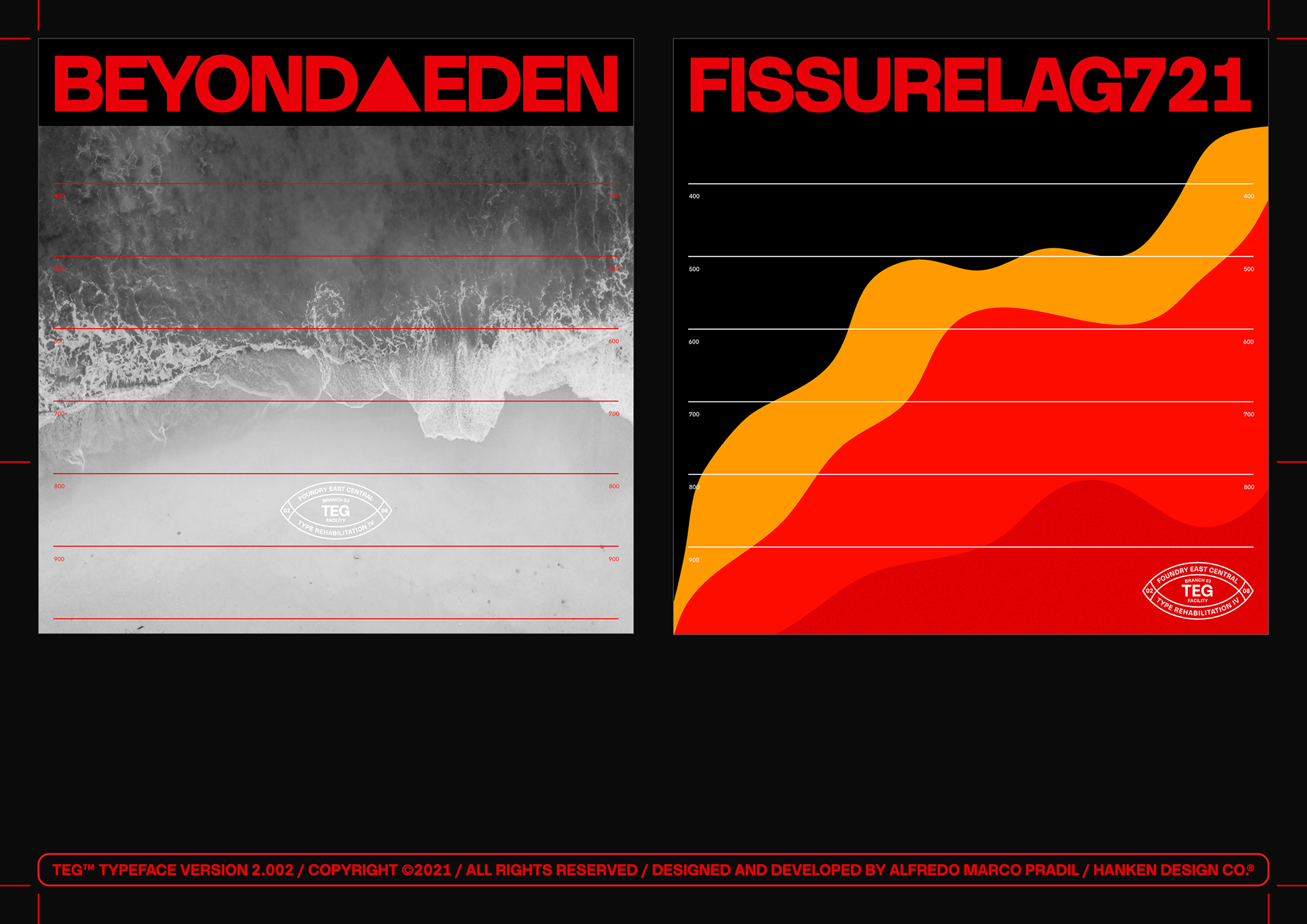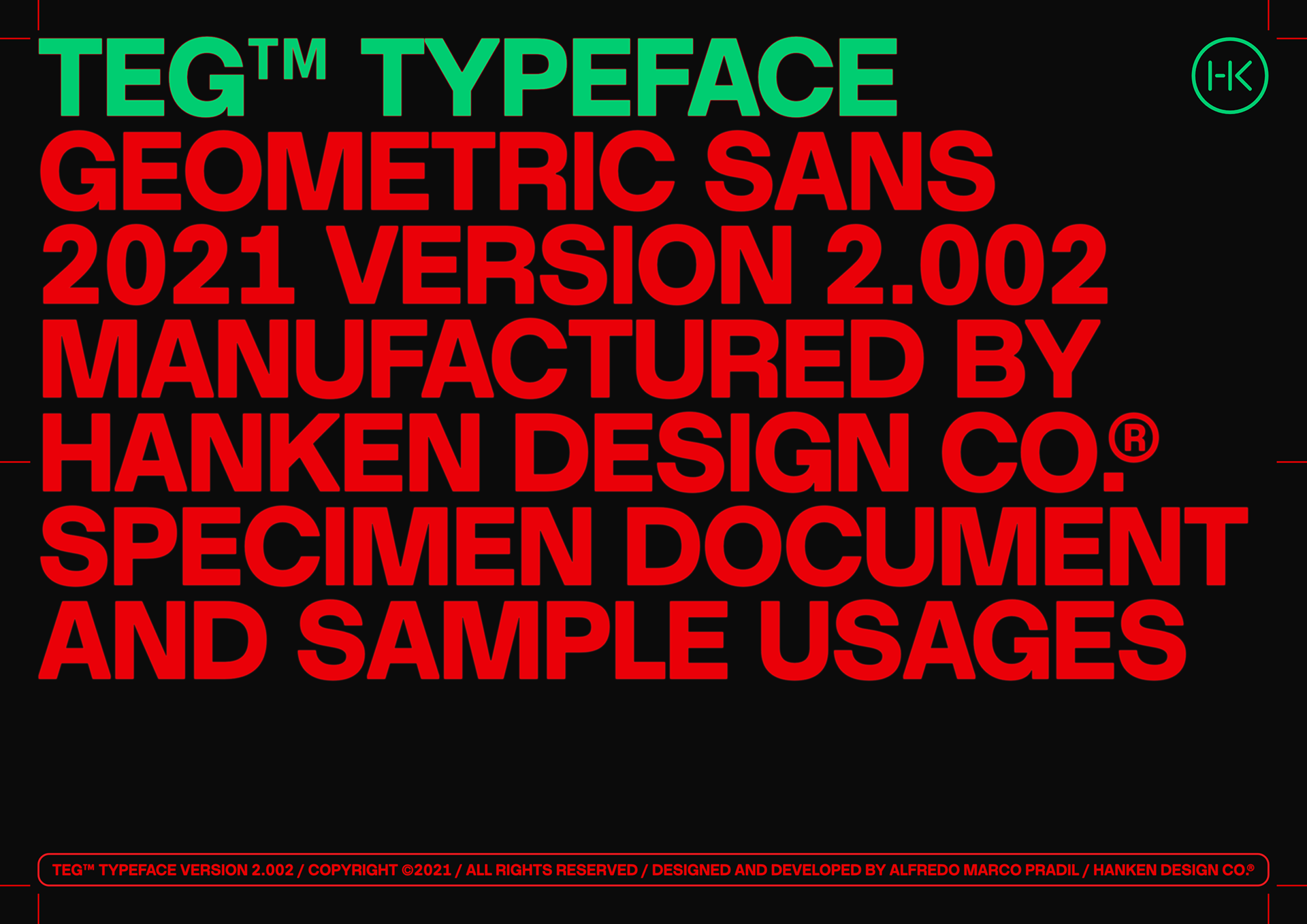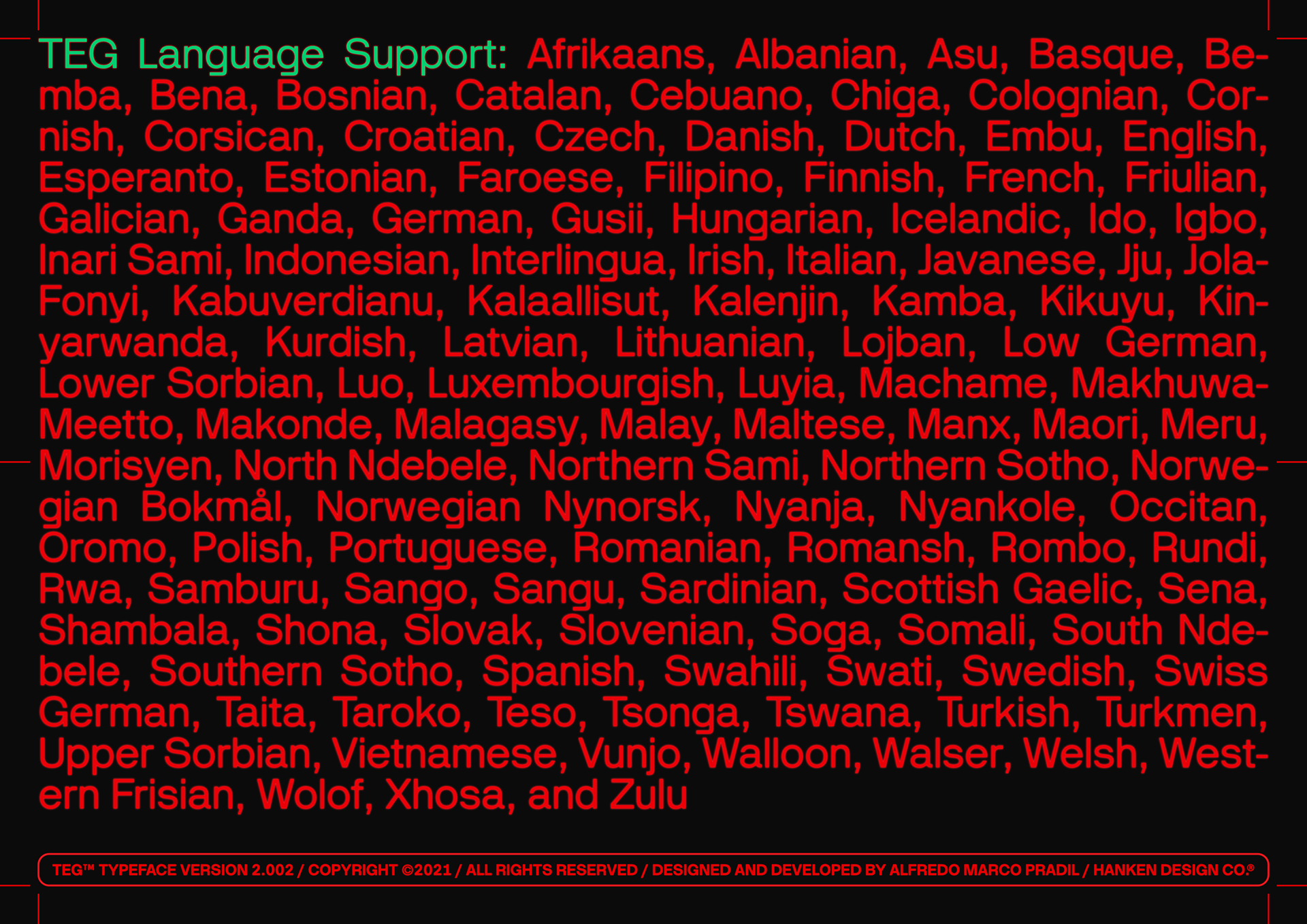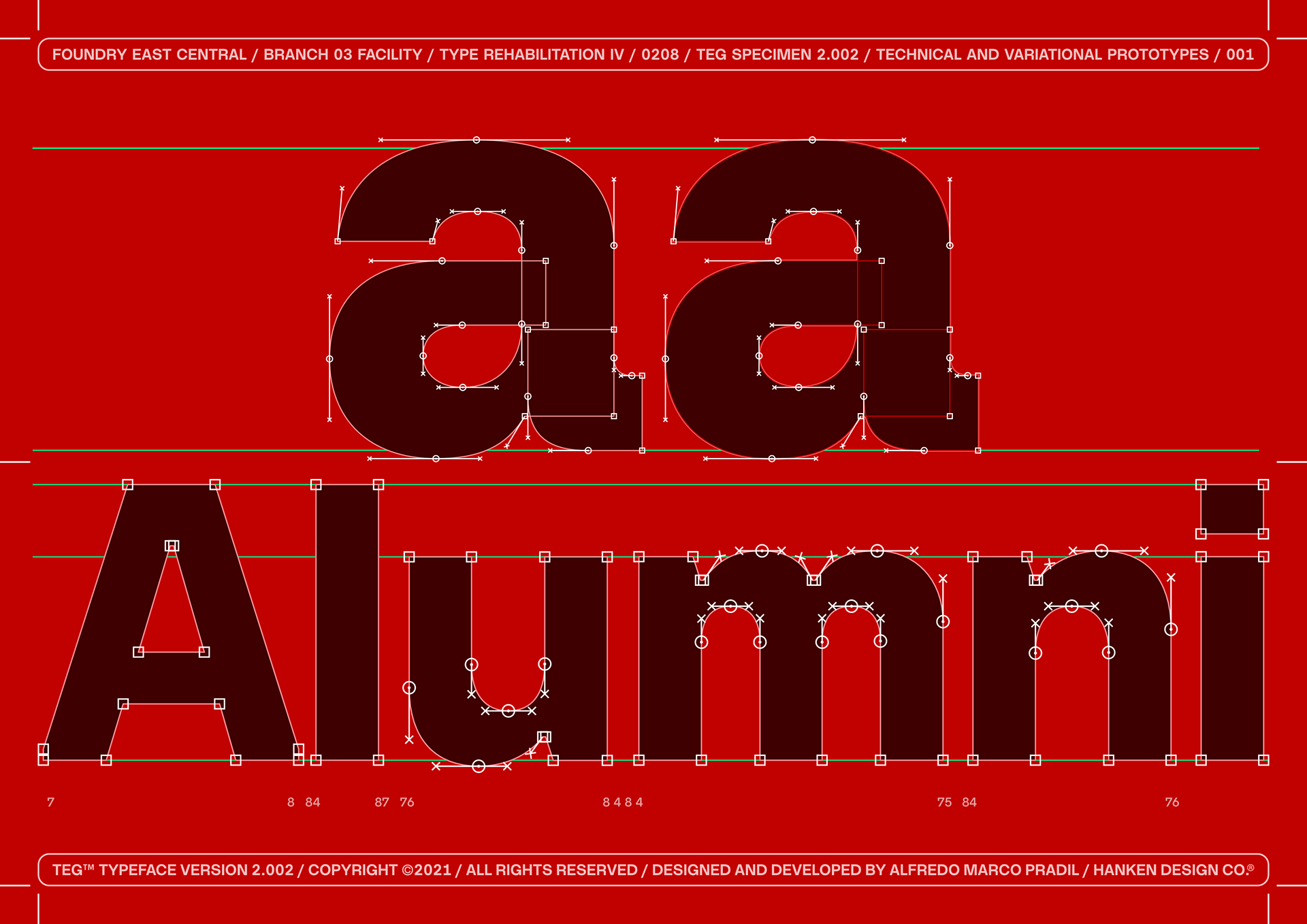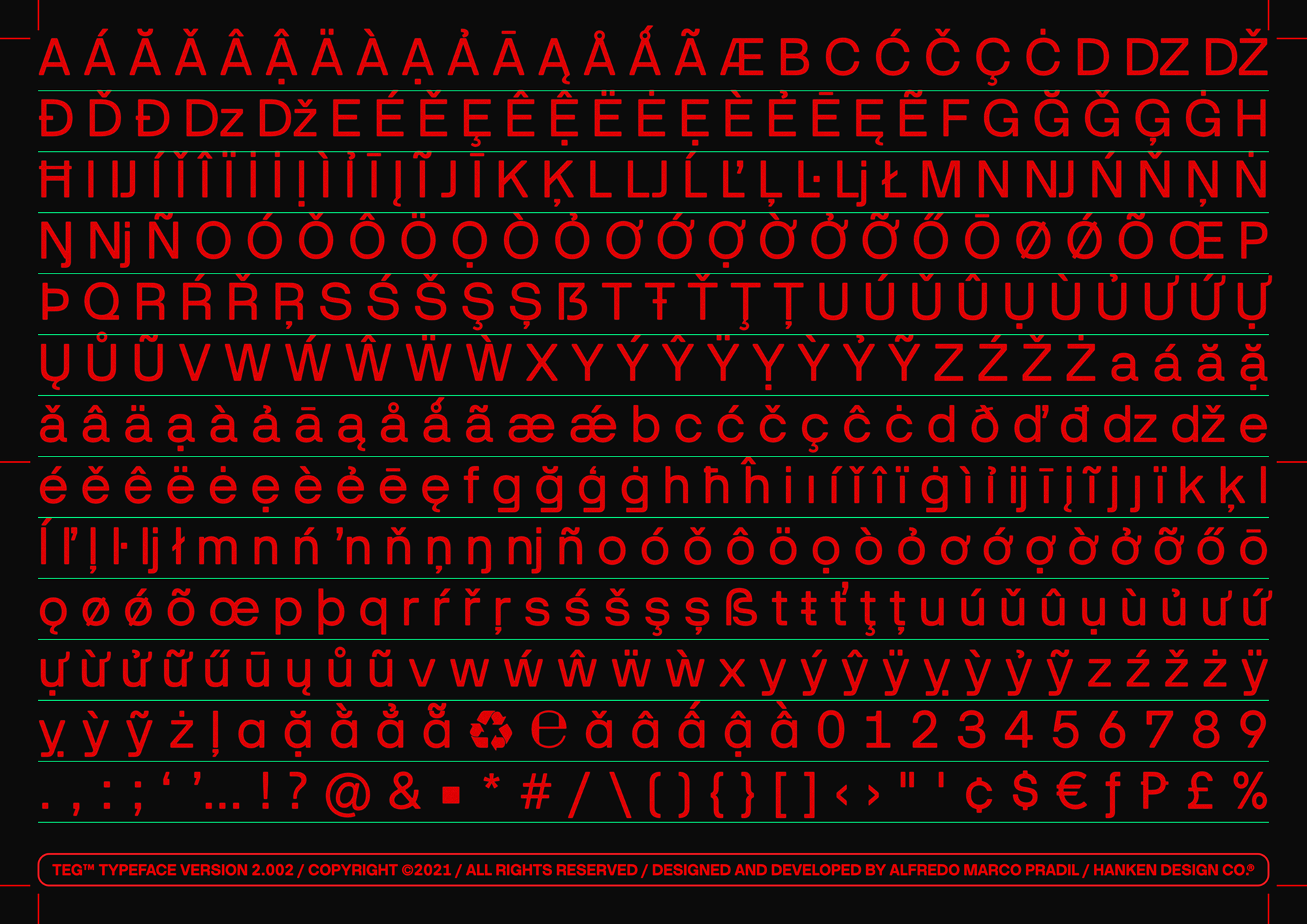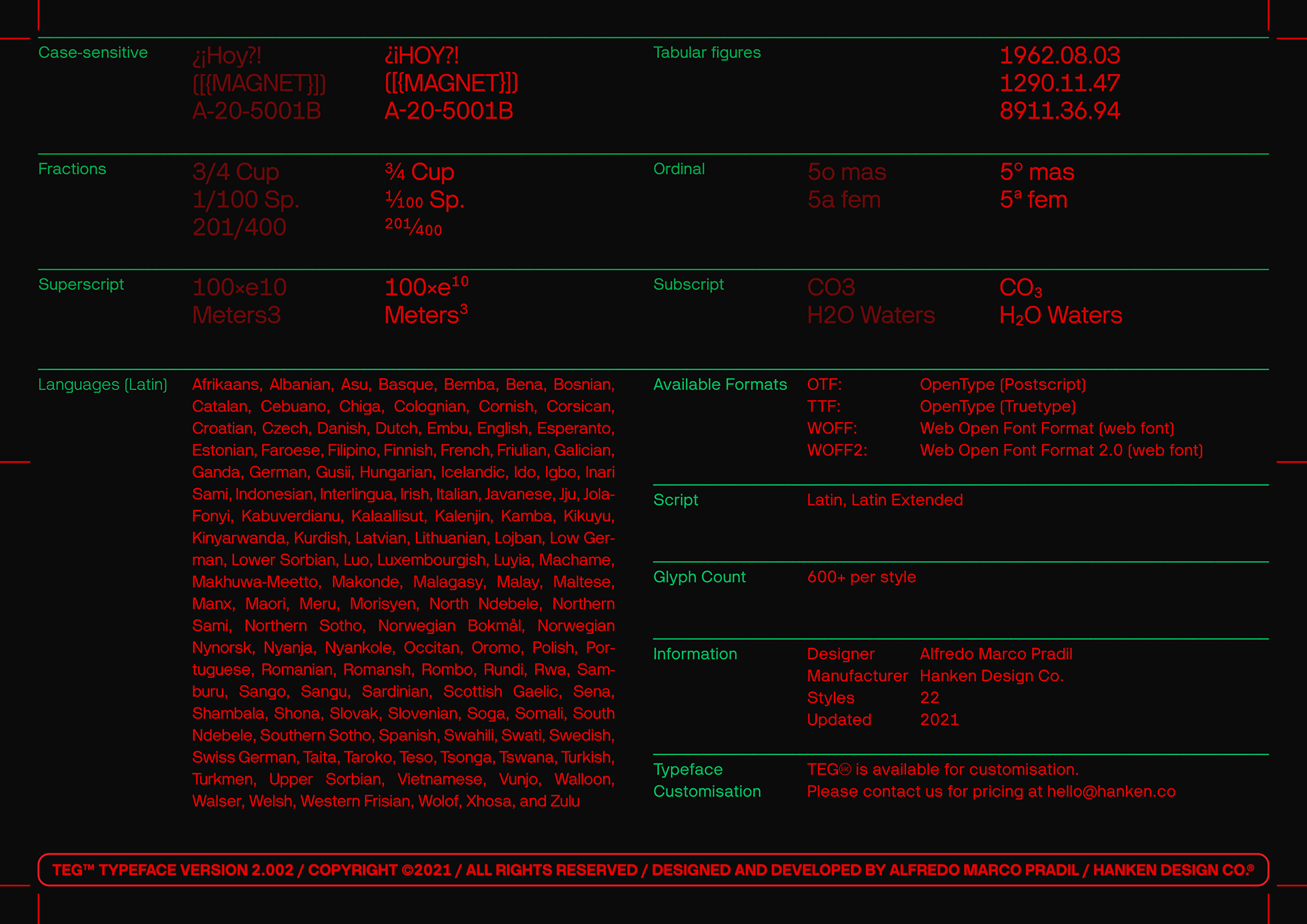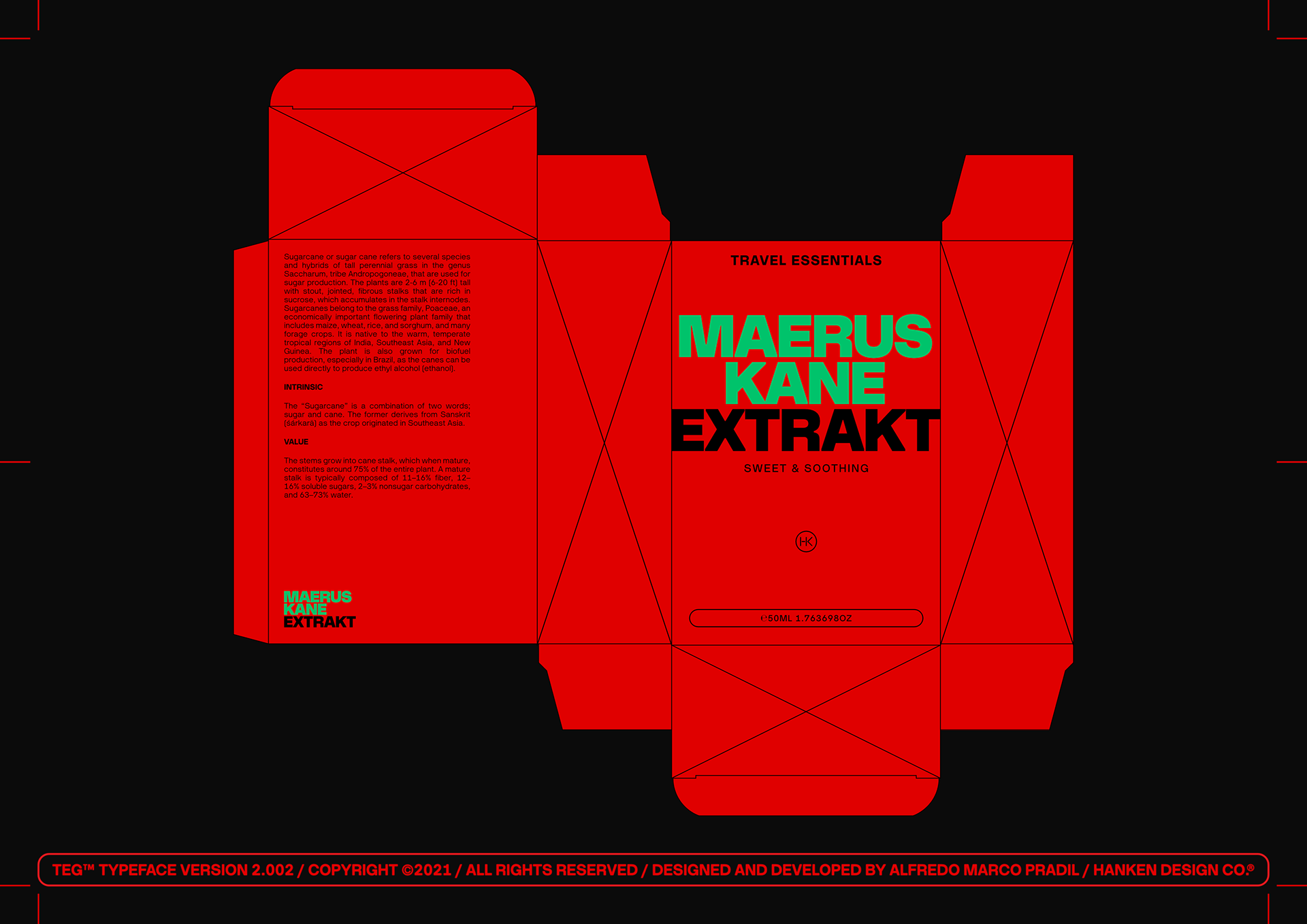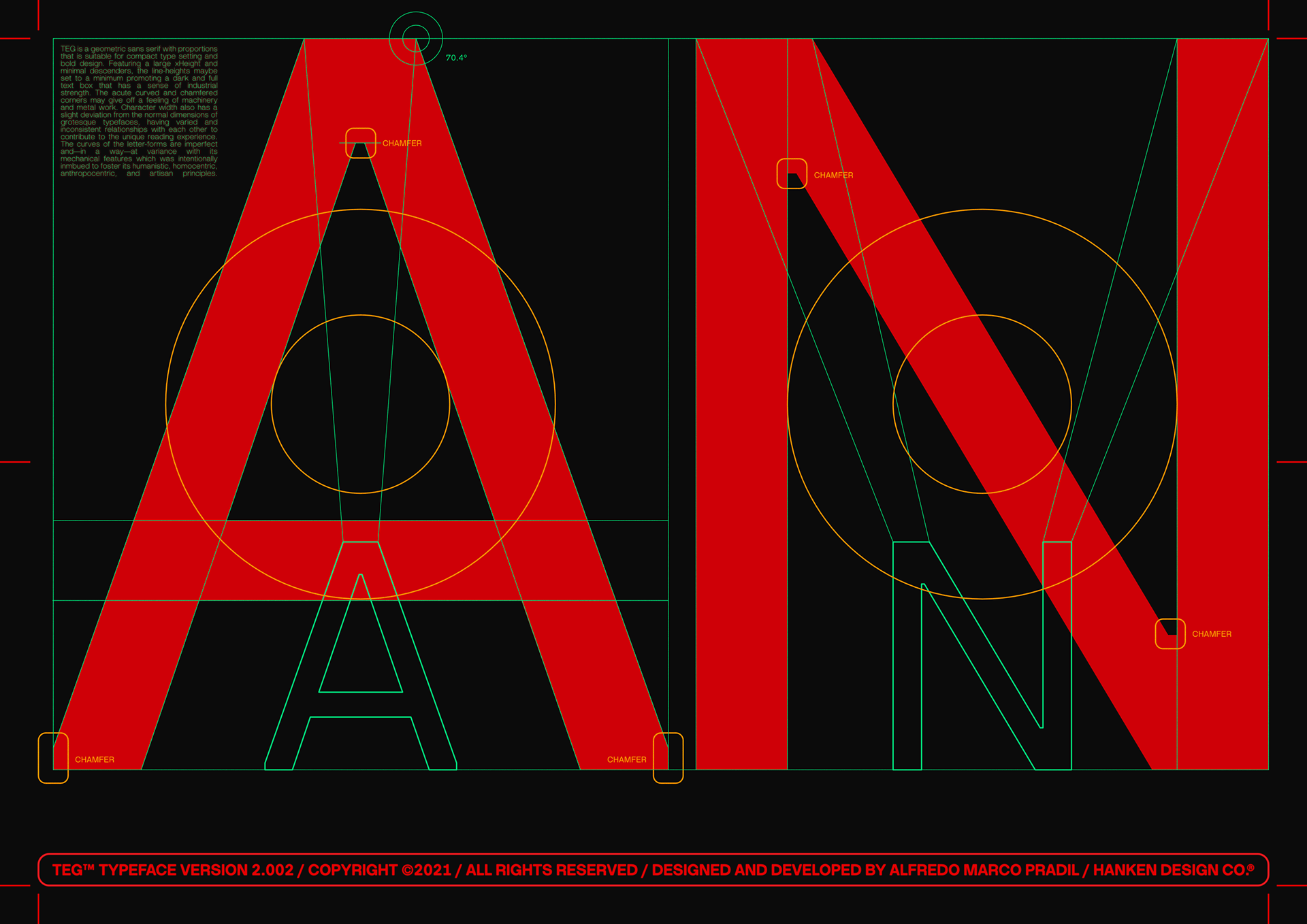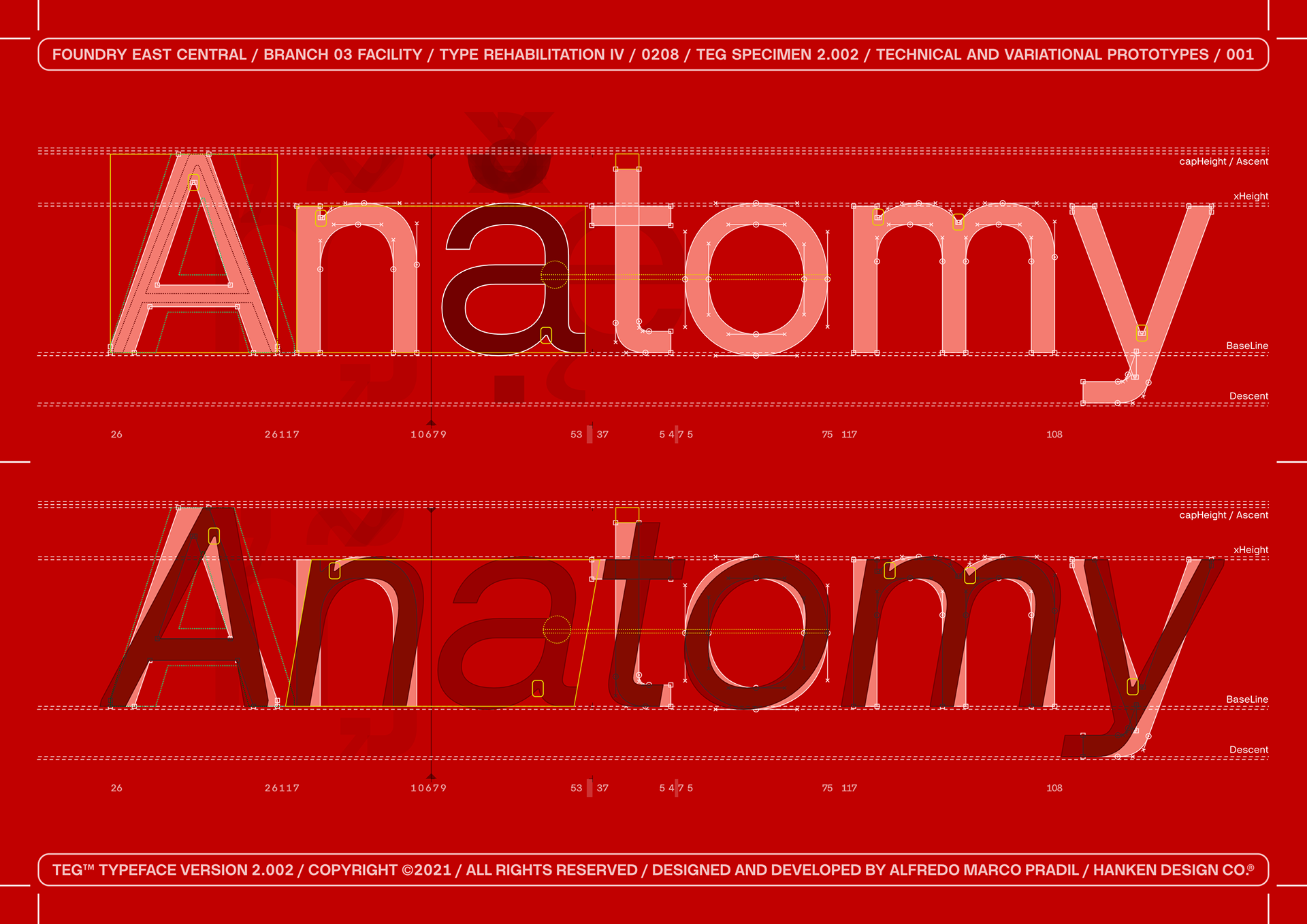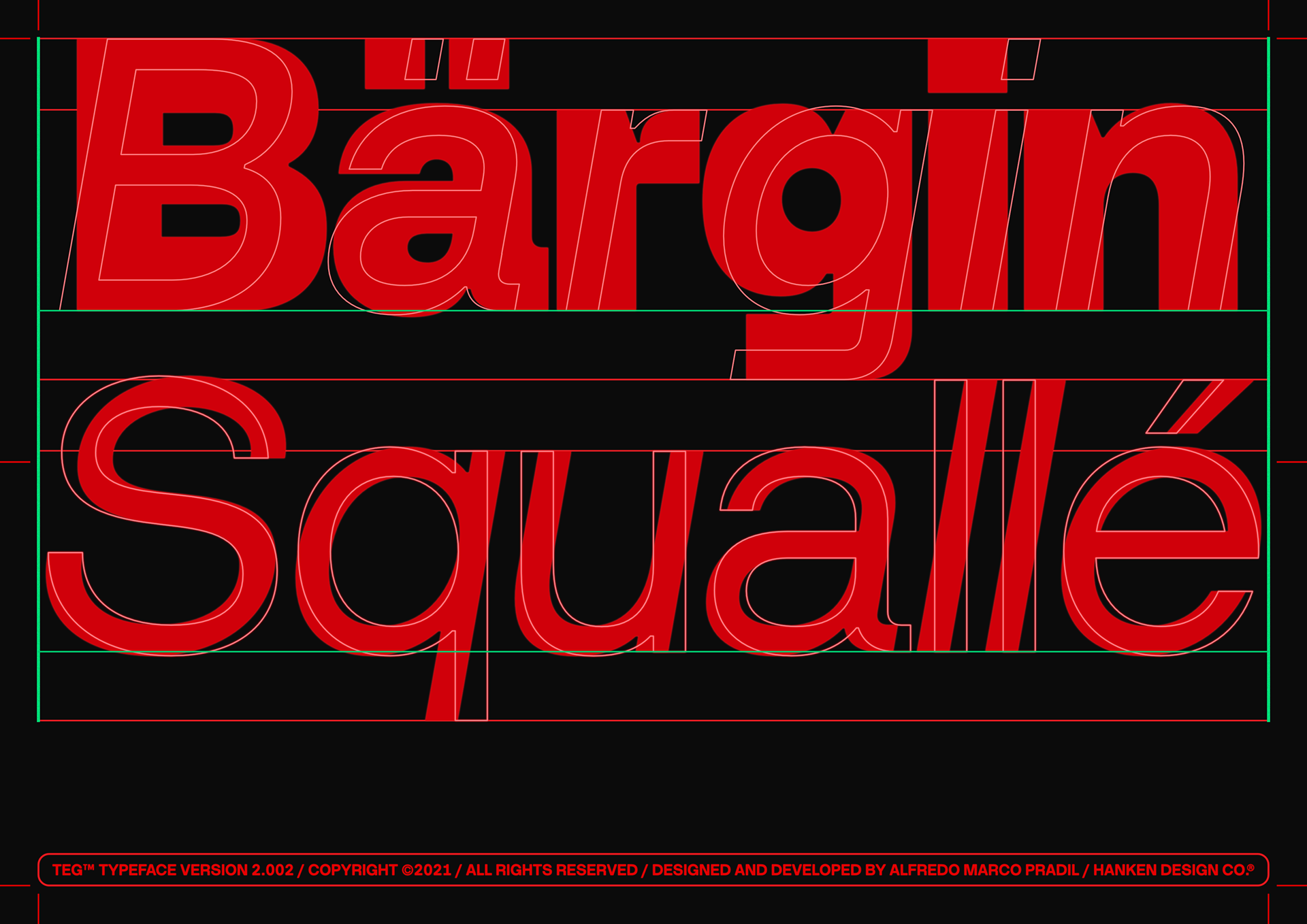
TEG™ is a modern sans serif that bridges the gap between stylistic geo sans and grotesque type design. It has a strong mono-linear design, a combination of sharp, and rounded curves which gives TEG™ a futuristic and classic grotesque feel.
— 22 Styles (Hairline, Thin, ExtraLight, Light, Regular, Medium, SemiBold, Bold, ExtraBold, Black, Ultra + italics)
— 40+ Languages Supported
— 600+ Glyphs per Weight